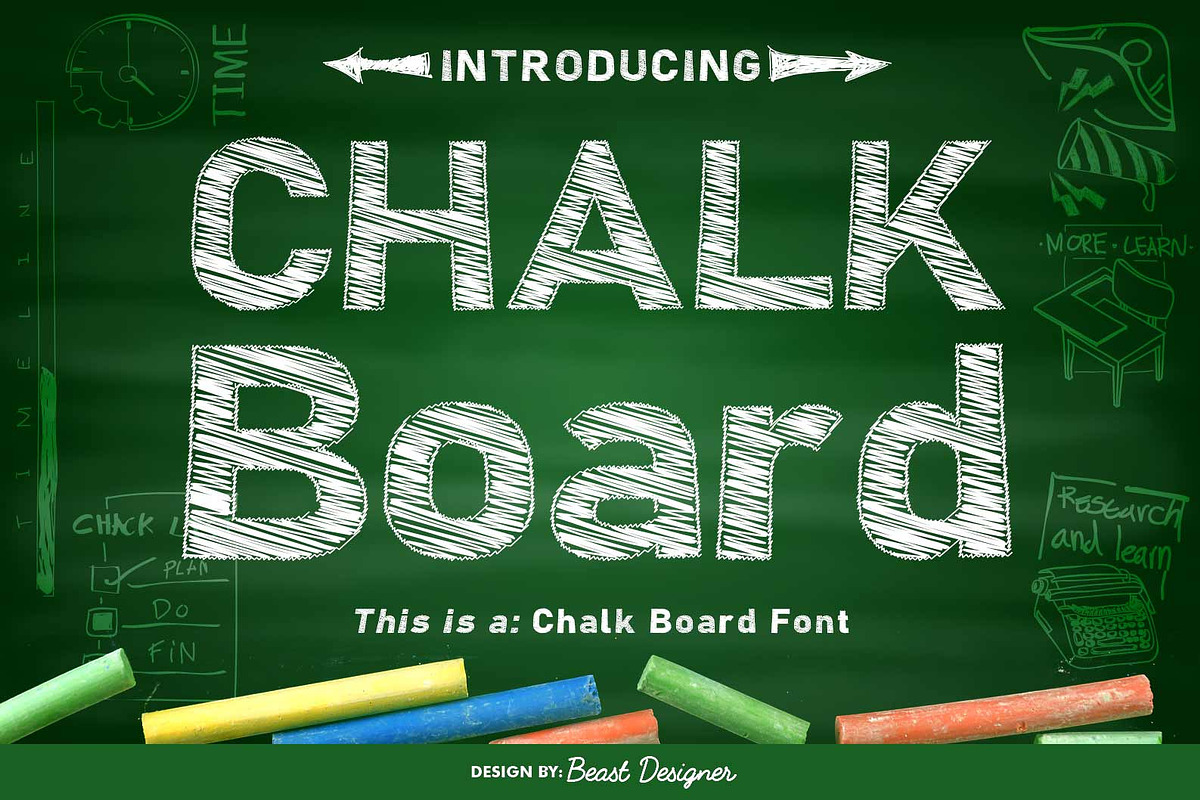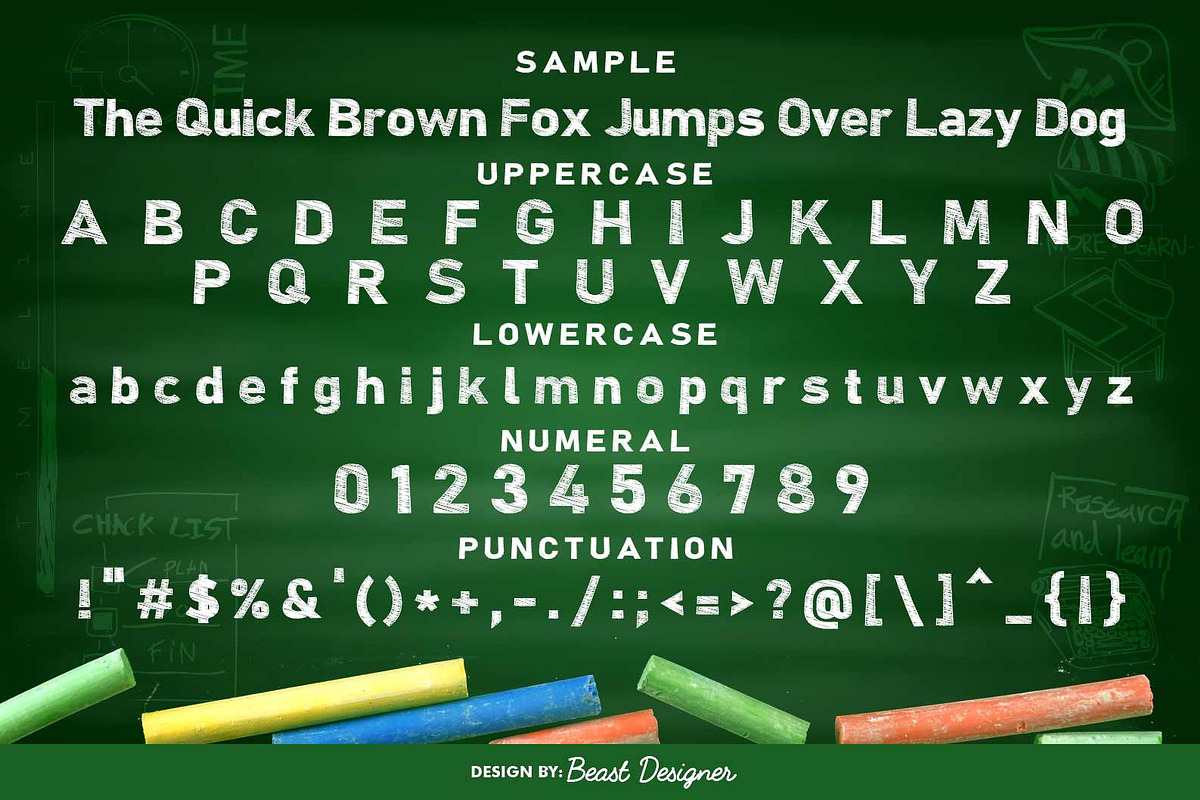
Chalk Board
The Chalkboard font captures the whimsical charm of handwritten chalk text. Its irregular lines and subtle smudging create a distinctly rustic and nostalgic feel, reminiscent of traditional chalkboards. This playful font is well-suited for projects seeking a casual, approachable aesthetic, making it a popular choice for educational materials, children's books, signage, restaurant menus, and art-related designs.